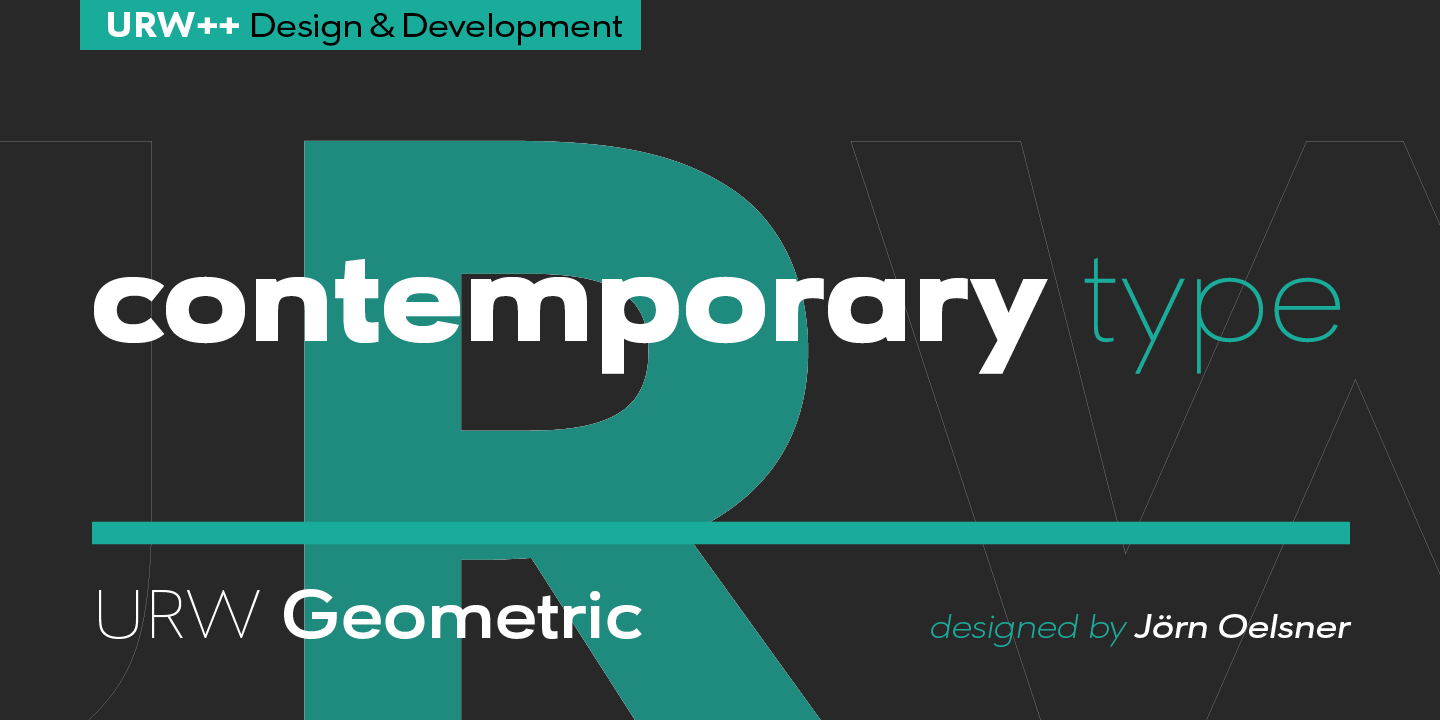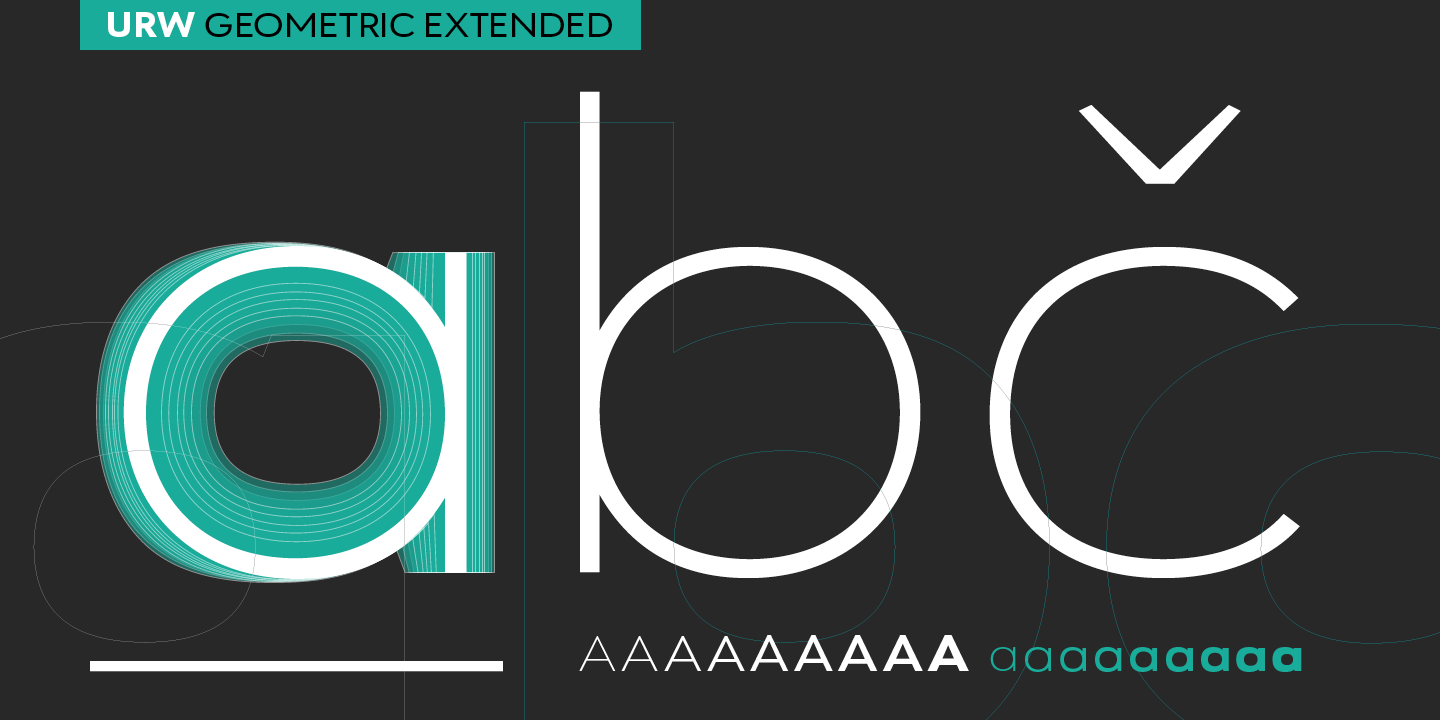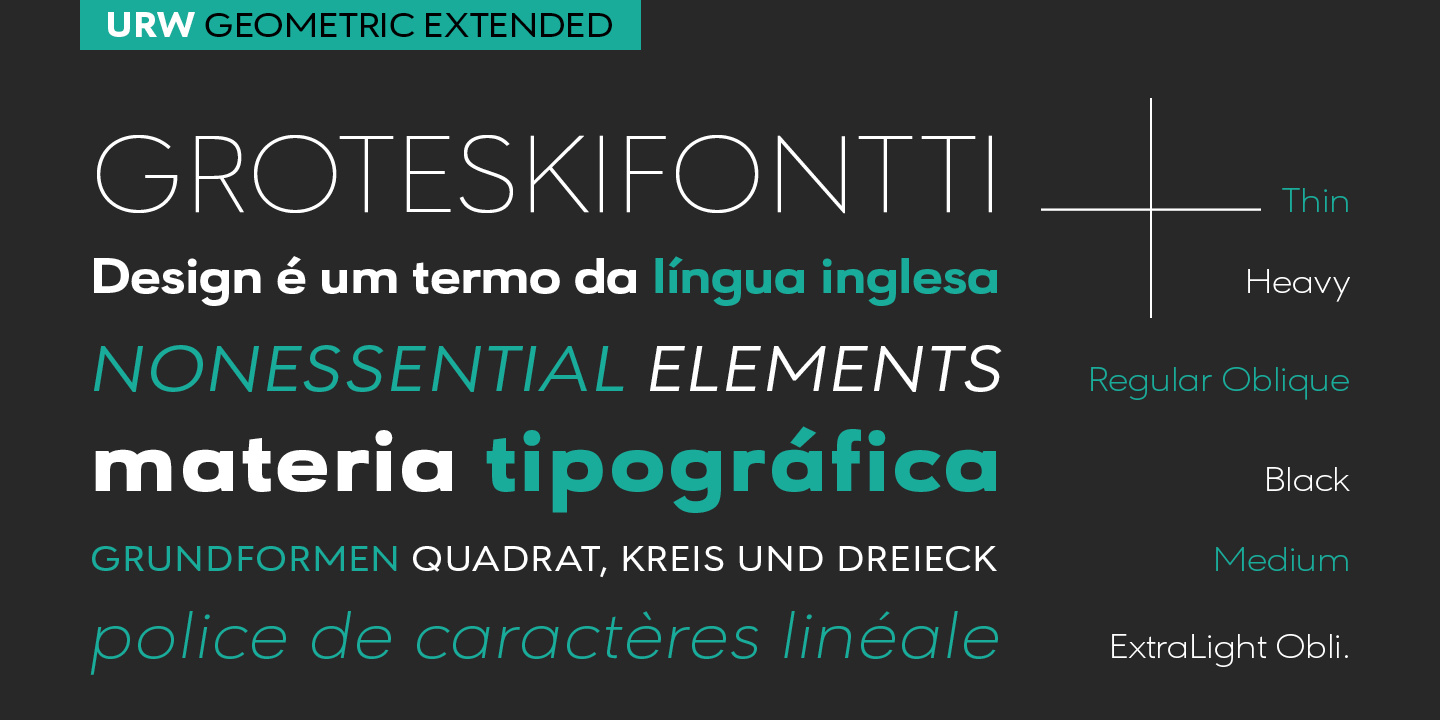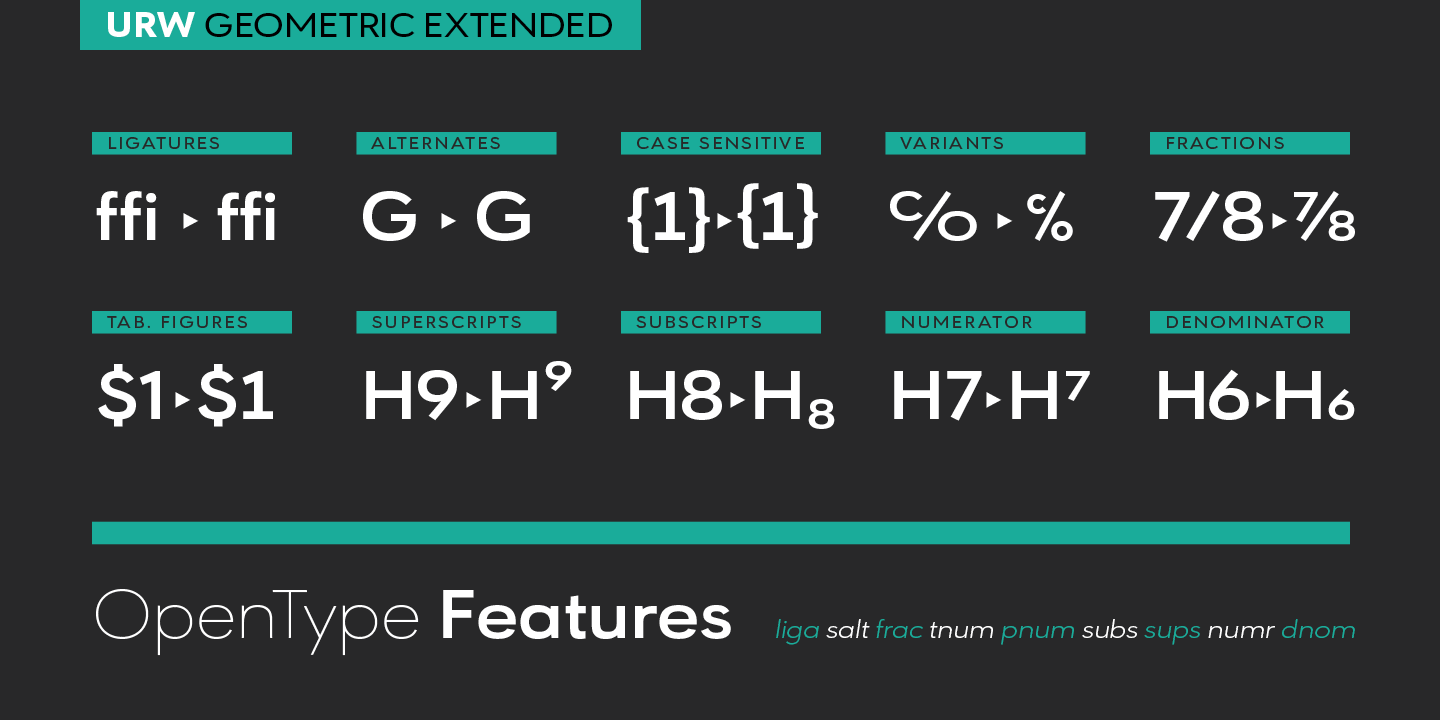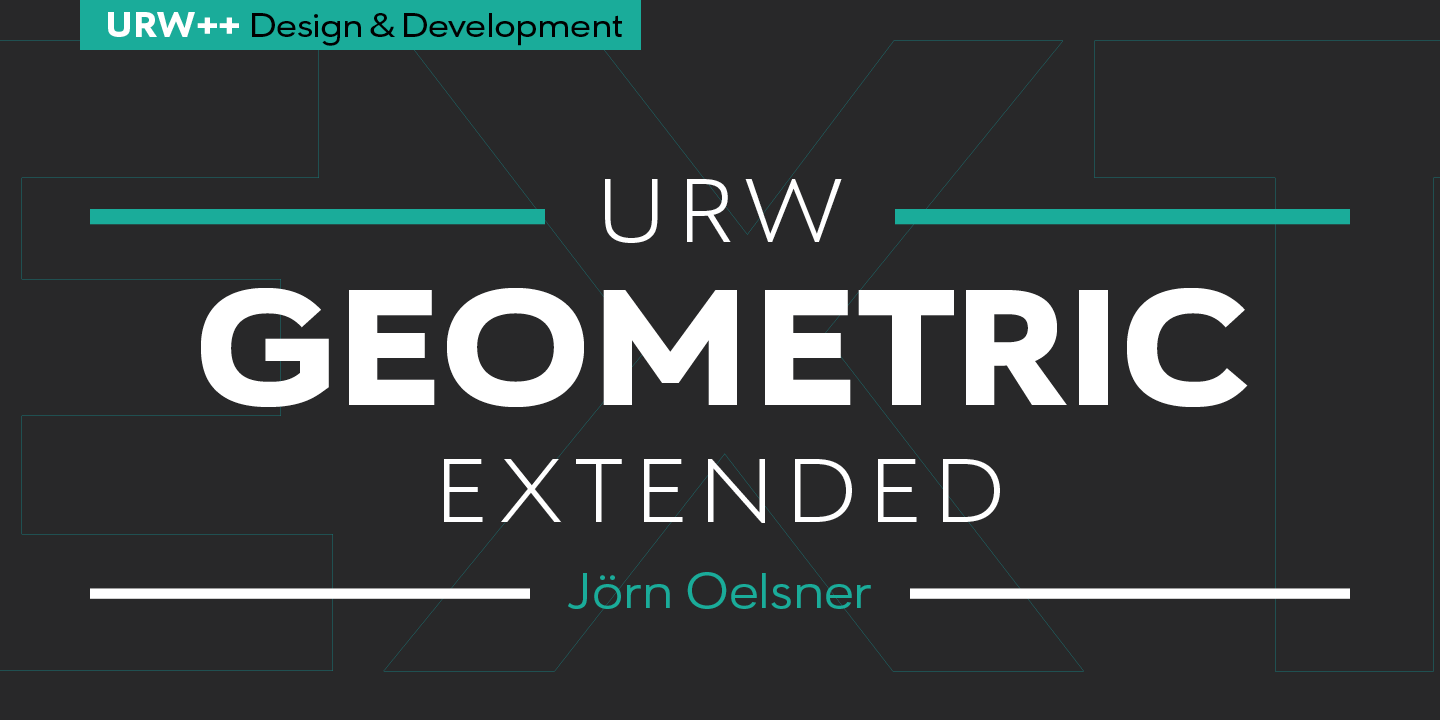
URW Geometric Extended (20 fonts)
From URW
URW Geometric is a sans serif typeface inspired by the German geometric typefaces of the 1920s but designed for modern usability. The character shapes have optimized proportions and an improved balance, the x-height is increased, ascenders and descenders are decreased. Special glyphs, which are often designed afterward for the original geometric typefaces from the 1920s, are perfectly integrated by URW Geometric. These design characteristics increase the usability and legibility tremendously. With its 10 weights ranging from Thin to Black, plus 10 additional oblique styles, it has a great versatility in mind. The extreme light styles shine brightly in large sizes, the middle weights are perfect for body copy and the bolder variants for the use of emphasis information or bring a strong impact in headlines and information. The optically balanced styles are designed to work in perfect harmony together. URW Geometric is functional, strong, simple and harmonized in form, and at a glance appears as a modern variant of its predecessors. Apart from the basic characters, the design has an extra focus on the special glyphs. These are designed for today’s needs. For example, the email glyph looks modern and unique, including a perfectly balanced spacing. The number sign, in modern use called “hashtag”, is space saving and optically balanced for body text. Additionally, various extra and alternate glyphs are designed to provide a friendly usability. Including a wide Latin language support and character sets, URW Geometric is perfectly designed for today’s requirements.